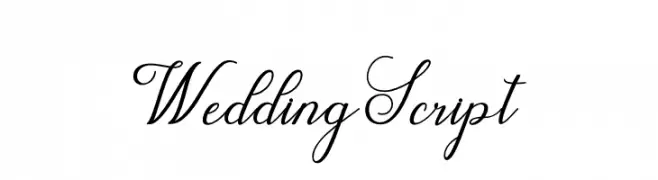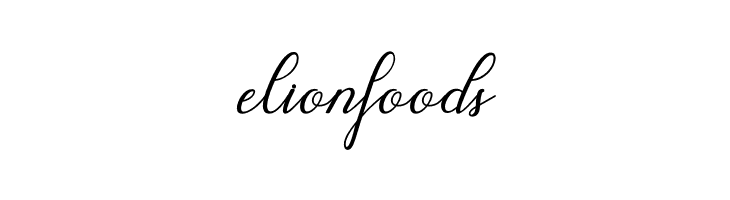
A graceful, flowing script font with elegant, continuous strokes.
An elegant and flowing script font with decorative loops and heart accents.
A playful, heart-themed decorative font with curvy, whimsical characters.
A decorative font with letters encased in a rose motif, offering an artistic and elegant style.
A playful, heart-themed decorative font with bold, rounded characters.
An elegant script font with intricate loops and flourishes, perfect for formal occasions.
An elegant script font with flowing, interconnected letters and ornate flourishes.
A playful, heart-themed font with bold, rounded characters.
A playful, heart-adorned font with bold, rounded characters.
An elegant, flowing script font with a natural handwriting style.